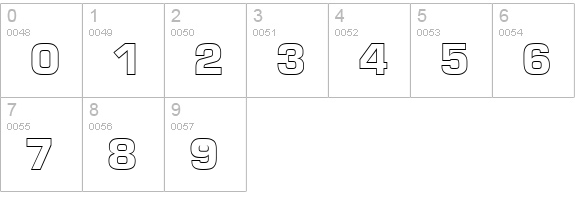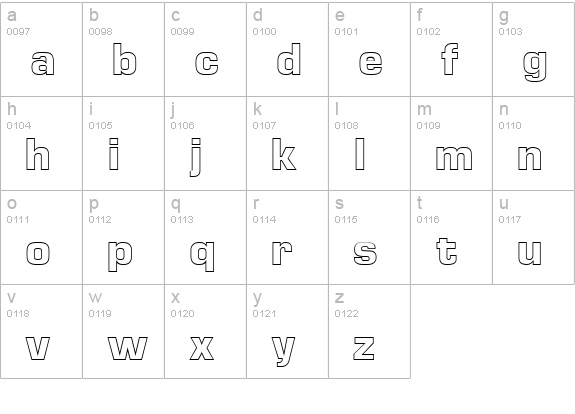
Euro Bold is a strong, high-contrast variant in the Euro typeface family \xE2\x80\x94 well suited to headlines, attention-grabbing titles, and strong calls-to-action.
Euro Bold font is a bold and modern typeface that exudes confidence and elegance. Its sleek lines and strong presence make it perfect for a wide range of design projects, from logos to headlines. With its clean and crisp letterforms, Euro Bold font is sure to make a statement and leave a lasting impression. And the best part? Euro Bold font is completely free to download at FontsMarket.com! This means you can add this versatile font to your collection without any cost, making it a valuable resource for all your creative needs. Don't miss out on the opportunity to enhance your designs with the striking Euro Bold font, available for free at FontsMarket.com.